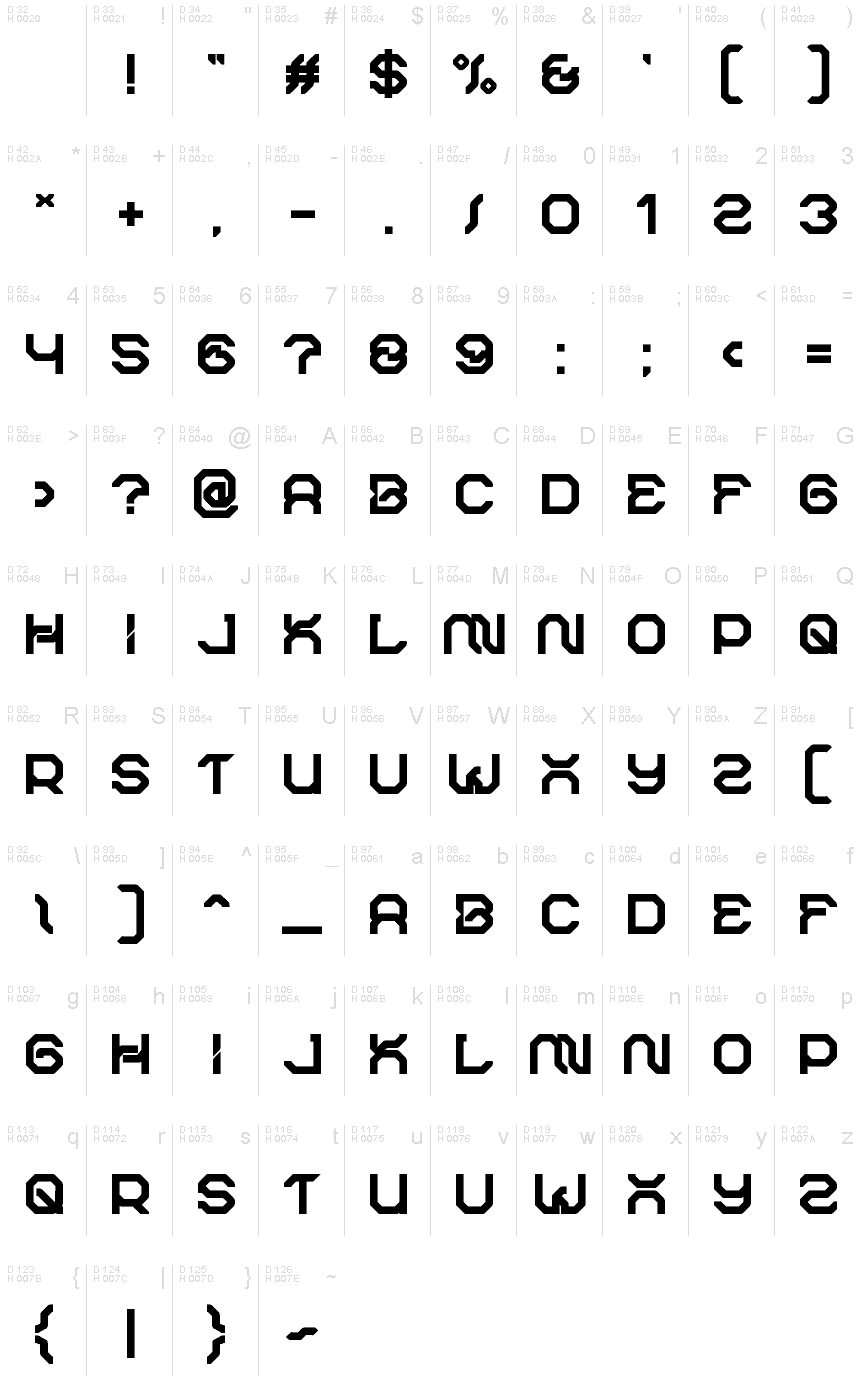
ROBMAX-36
Robmax-36 font by Enxyclo Studio is a sleek futuristic, geometric and angular impactful typeface. The rugged yet stylish design is inspired by cutting-edge metallic machinery visuals associated with the world of aeronautics, thought-control devices, prosthesis limbs etc. This fusion of human elements and futuristic machine technology can be used for any set of text that requires a concise modern look. Although many letter shapes such as "S" have rounded sections, certain others like "M" or "X" have strictly contained sharp lines only.
Use this free techno display font in posters, banners, books covers, billboards and stationery items among other things. It will also fit business cards and logos that want to communicate seriousness but not unfriendliness at its core concept. Benefit from including it on social media accounts alongside your videos or post contexts if you want to attract immediate attention in a positive way.